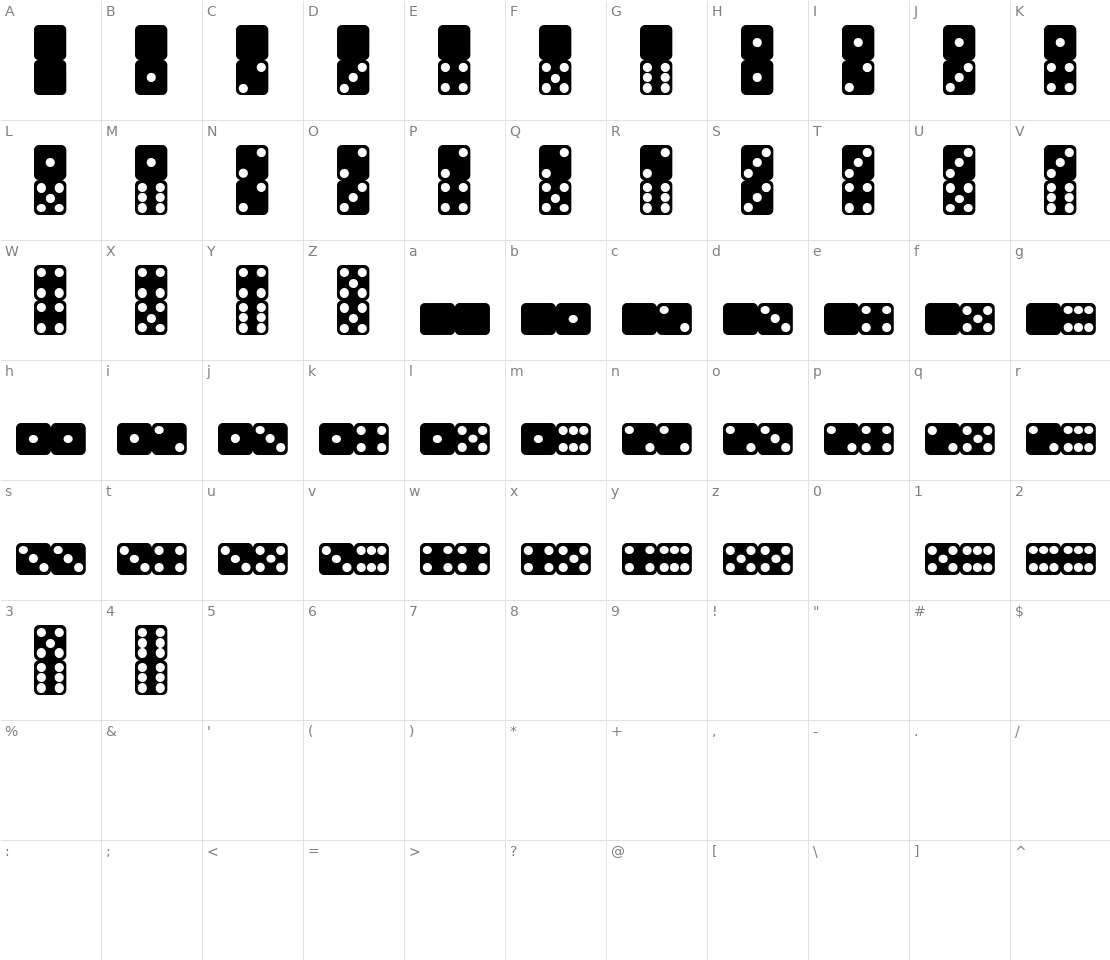
Domik
Domik is a novelty symbol font by hertoy featuring dice faces, domino tiles, and other board game iconography in place of standard letterforms. It's a utility font rather than a reading face, designed to drop game-related symbols into layouts, rule sheets, or digital tabletop projects without needing separate icon assets.